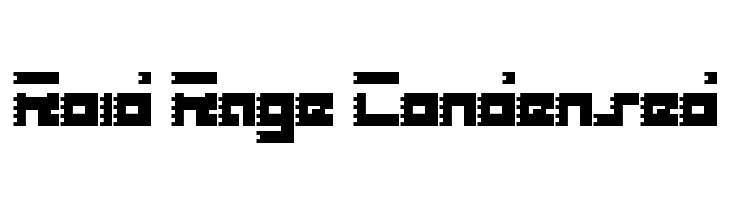
A bold, pixelated font with a condensed, digital style.
A bold, condensed, italic font with a pixelated, digital aesthetic.
A bold, italic, pixelated font with a retro digital aesthetic.
A bold, pixelated font with a retro, digital aesthetic.
A bold, pixelated font with a rugged, digital aesthetic.